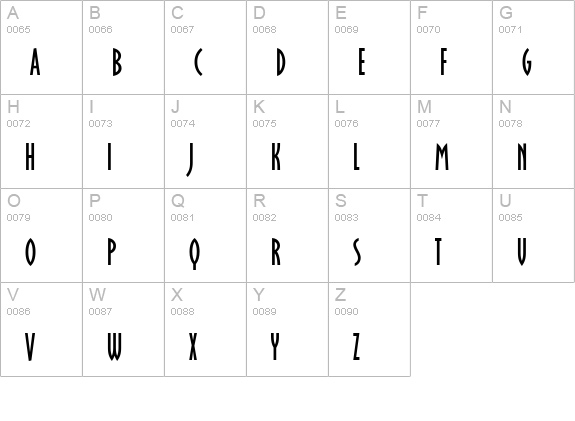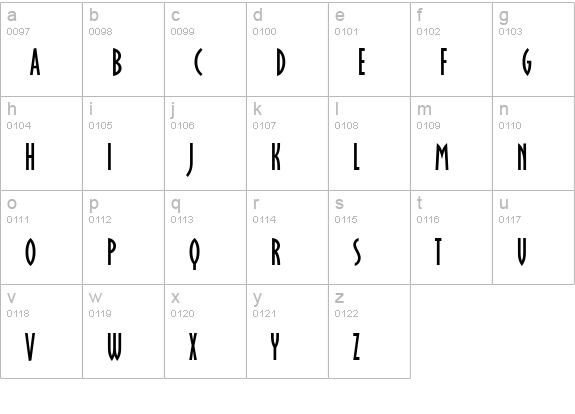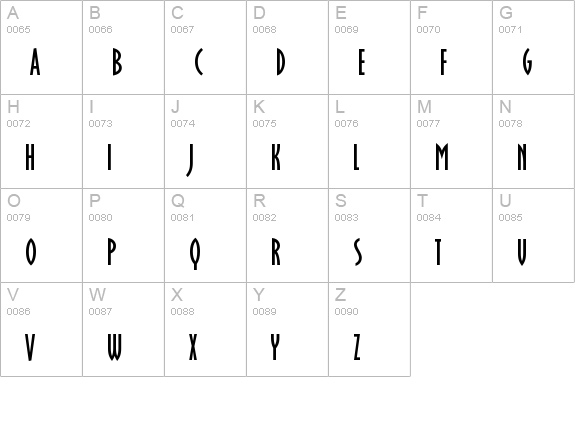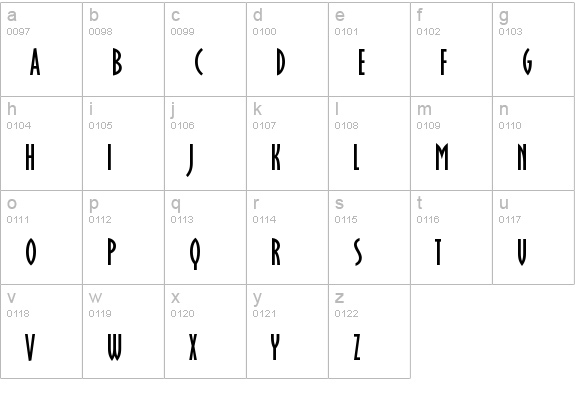
OklahomaSoft Font Details
Introducing OklahomaSoft - a versatile and charming font that embodies the spirit of the American Midwest. With its unique blend of modernity and nostalgia, OklahomaSoft is the perfect choice for projects that require a touch of warmth and authenticity. This free-spirited font is sure to make your designs stand out from the crowd, whether you're working on branding, packaging, or any other creative endeavor. Designed with readability and versatility in mind, OklahomaSoft is suitable for a wide range of applications, from logos and headlines to body text and more. Its soft curves and gentle lines create a sense of approachability and friendliness, making it ideal for projects that aim to connect with audiences on a personal level. Best of all, OklahomaSoft is freely available to download at FontsMarket.com, so you can start using this charming font in your projects right away. Don't miss out on the opportunity to add a touch of warmth and character to your designs with OklahomaSoft - download it today and see the difference it can make!